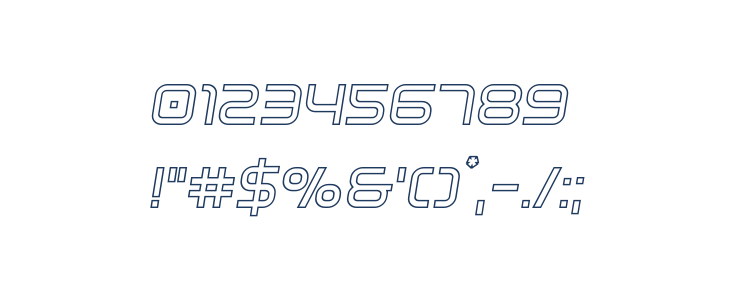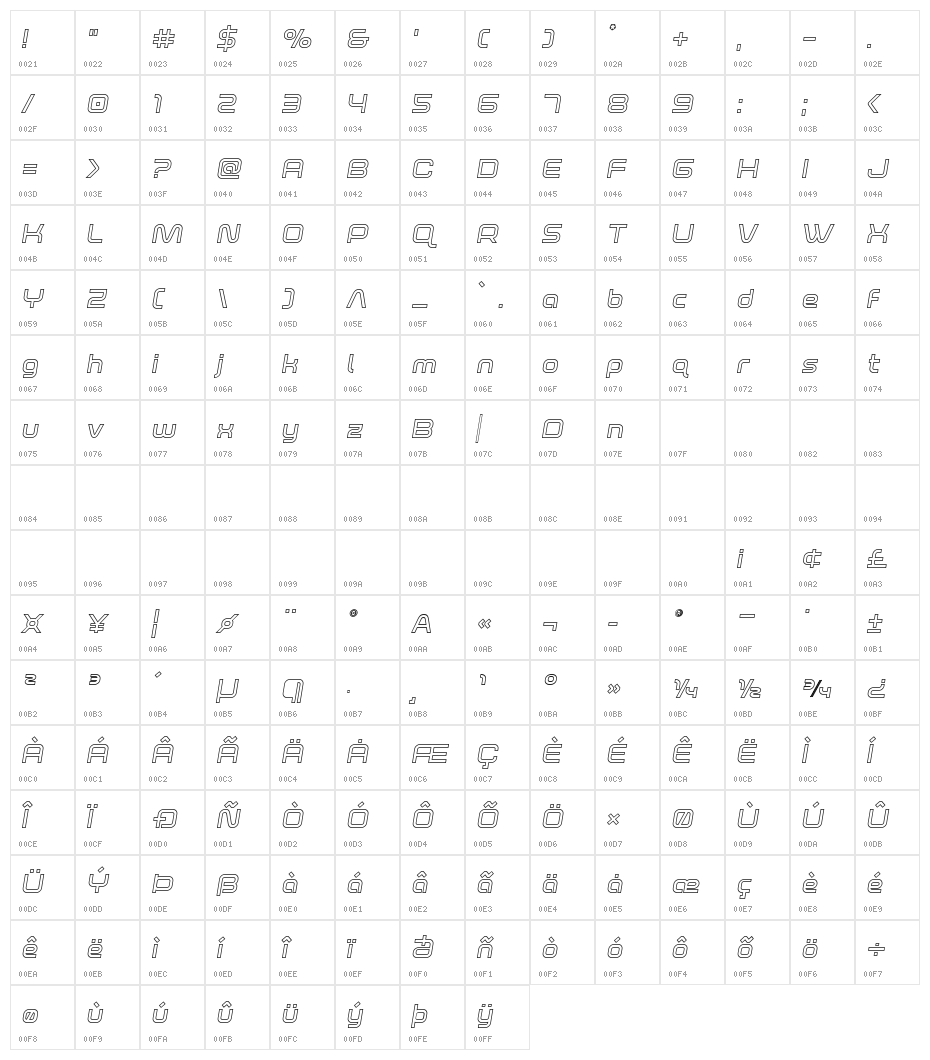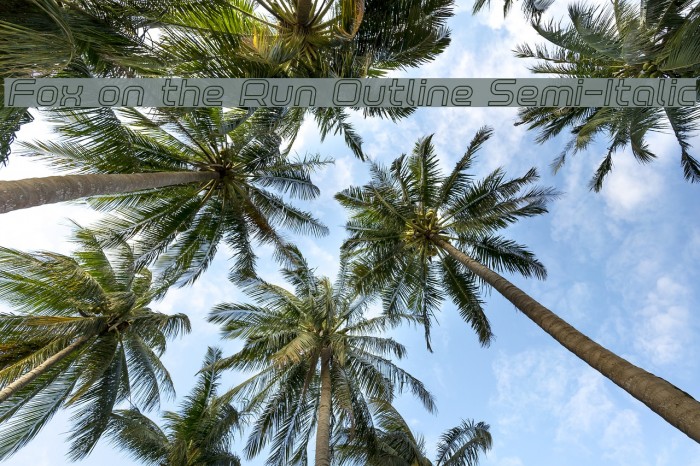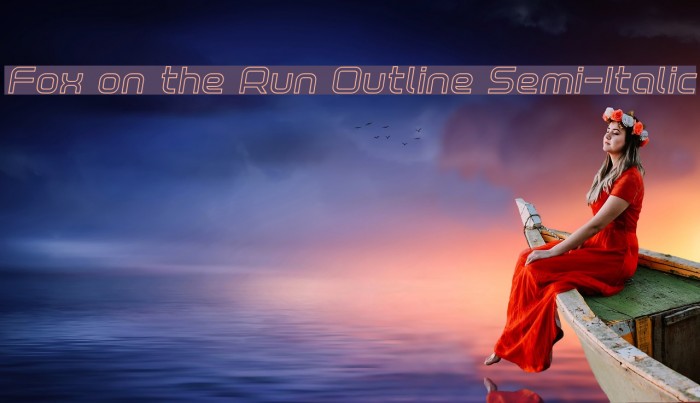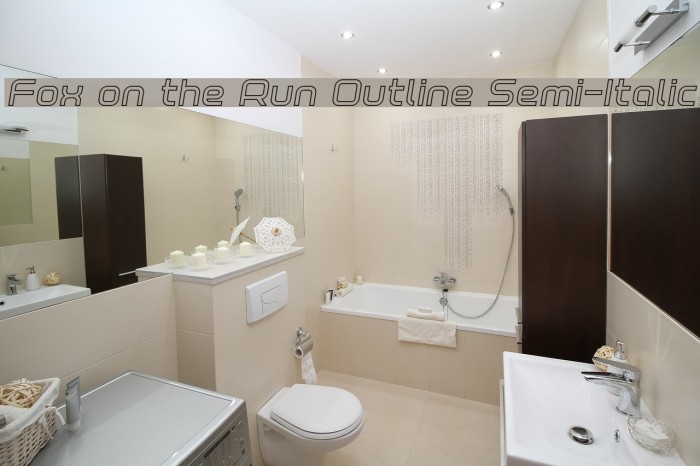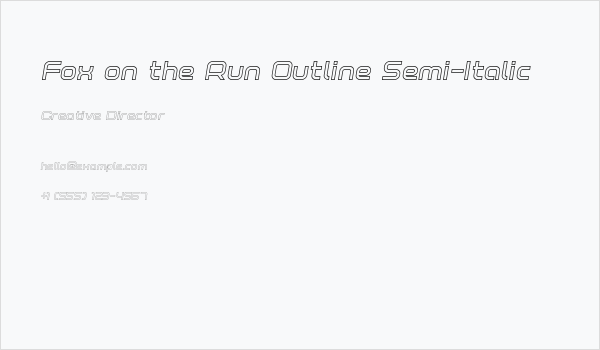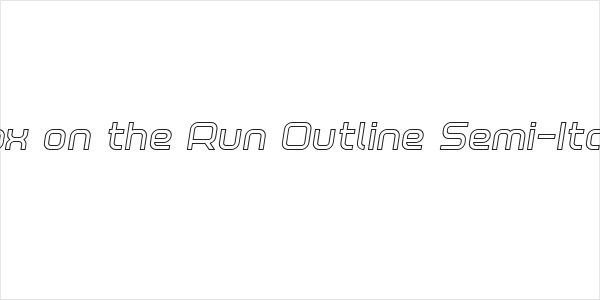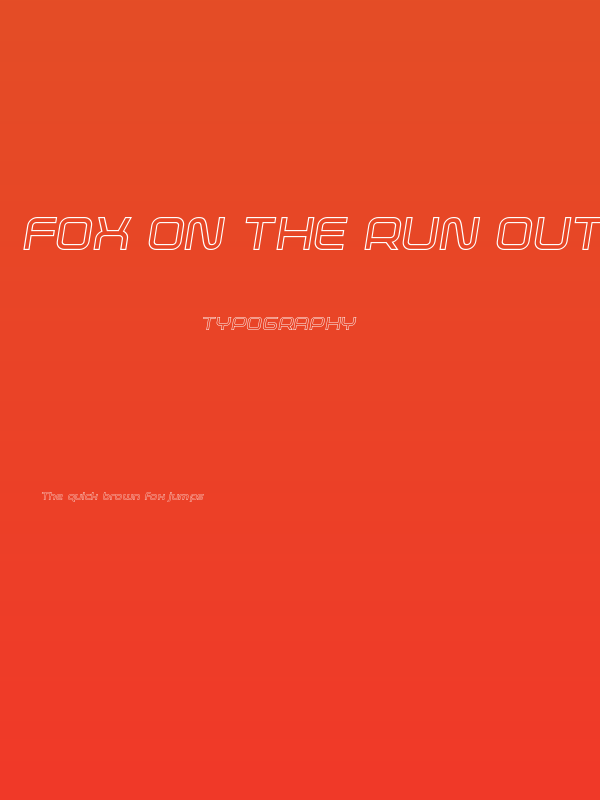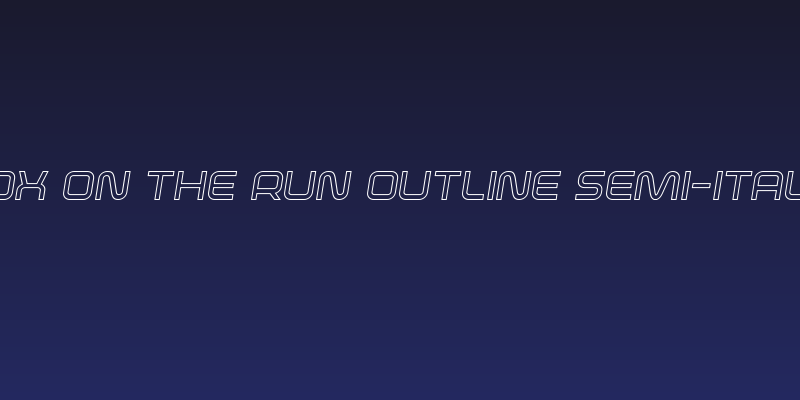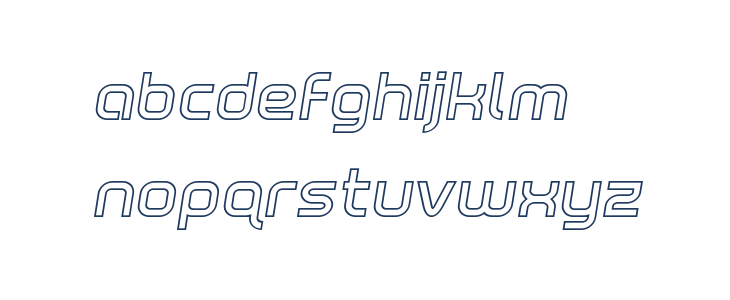
Fox on the Run Outline Semi-Italic Font
Fox on the Run Outline Semi-Italic Description
This font features a unique outline style with semi-italicized characters, giving it a dynamic and modern appearance. The uppercase and lowercase letters maintain a consistent geometric structure, with clean lines and a slight slant that adds a sense of motion. The numerals and special characters follow the same outline design, ensuring uniformity across all elements. The font's open and airy design makes it suitable for projects that require a contemporary and stylish look.
| Proposed Projects | Ideal for branding, posters, and digital media where a modern and stylish aesthetic is desired. |